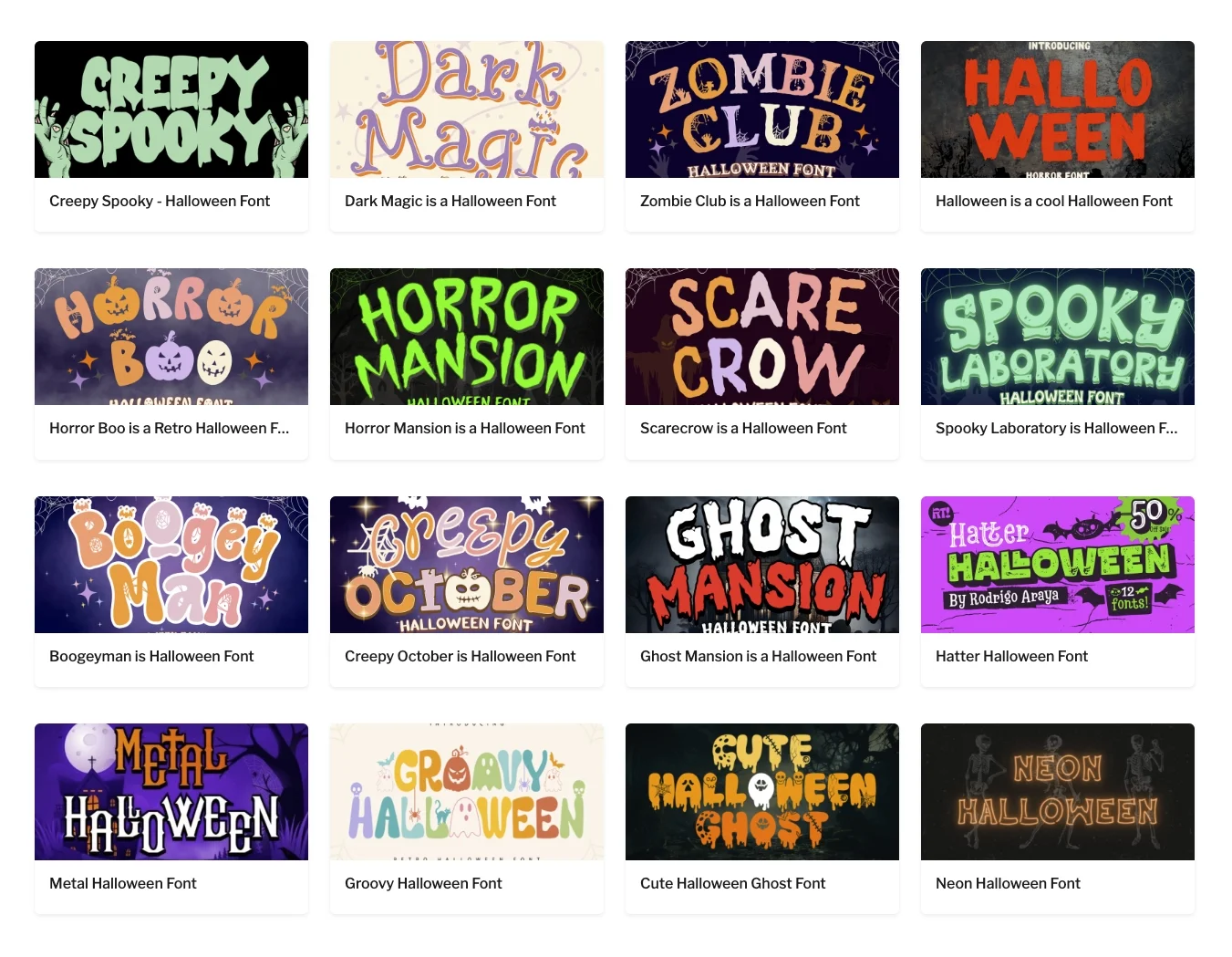
Add a Spooky Touch to Your Designs with Halloween-Themed Fonts
Every year when October arrives, Halloween not only takes over home decorations and costumes but also has a strong influence on digital designs. Websites, posters, social media posts, and various graphic designs all transform to capture the spirit of Halloween. One essential tool for designers and content creators to embrace this theme is Halloween-themed fonts.
So, what exactly are these fonts, and why should you consider using them in your designs?
Characteristics of Halloween Font
Spooky Aesthetic: Halloween fonts typically feature sharp, slanted, or jagged lines. These fonts are often inspired by vampire stories, ghosts, or dark and eerie scenes. This allows your text to evoke a mysterious atmosphere while being attention-grabbing.
Thematic Icons: Some Halloween fonts come with decorative touches like tiny pumpkins, bats, spider webs, or skeletons integrated into the letters. This adds an extra layer of thematic depth to your design.
Unique Characters: Each Halloween font carries its own personality. Some might resemble handwritten scripts, while others draw inspiration from gothic or classic horror films. The font you choose plays a crucial role in setting the tone for your design.
Where to Use Halloween Fonts?
Social Media Posts: Create spooky headlines and slogans for Halloween-themed posts. These fonts will help your posts stand out and generate more engagement.
Party Invitations: If you're designing invitations for a Halloween party, Halloween fonts are a perfect choice to give them a scary atmosphere.
E-Commerce and Discount Campaigns: For those running e-commerce sites, Halloween-themed fonts can be used to highlight special discounts or promotions. A spooky but fun design can attract more customers.
Websites: If you want to give your website a Halloween makeover, using these thematic fonts for headings or key sections will help grab visitors' attention and enhance the festive vibe.
Best Halloween Fonts
There are plenty of free and premium Halloween-themed fonts available online. Here are a few popular ones that might suit your design needs:
Creepster: This font offers a classic horror movie poster look and is especially eye-catching when used in large letters.
Nosifer: Featuring a dripping blood effect, this font is perfect for designs with a more frightening theme.
Dripping Marker: Known for its blood-dripping appearance, this font is ideal for gruesome, spooky projects.
Spooky Ghost: With a softer, more playful spooky feel, this font is great for designs aimed at children.
Halloween-themed fonts can turn an ordinary design into something spectacular, effortlessly capturing the eerie atmosphere of the holiday. Whether you're aiming for something frightening or fun, the right font choice will bring a powerful aesthetic to your project.